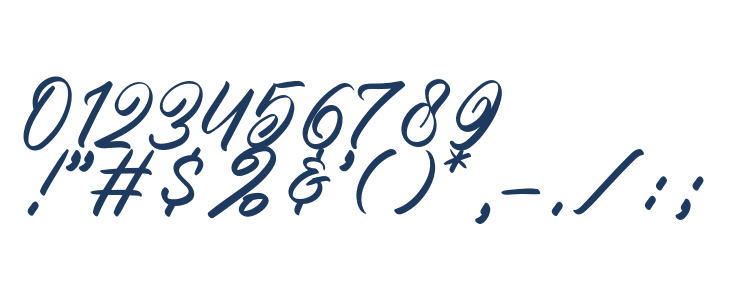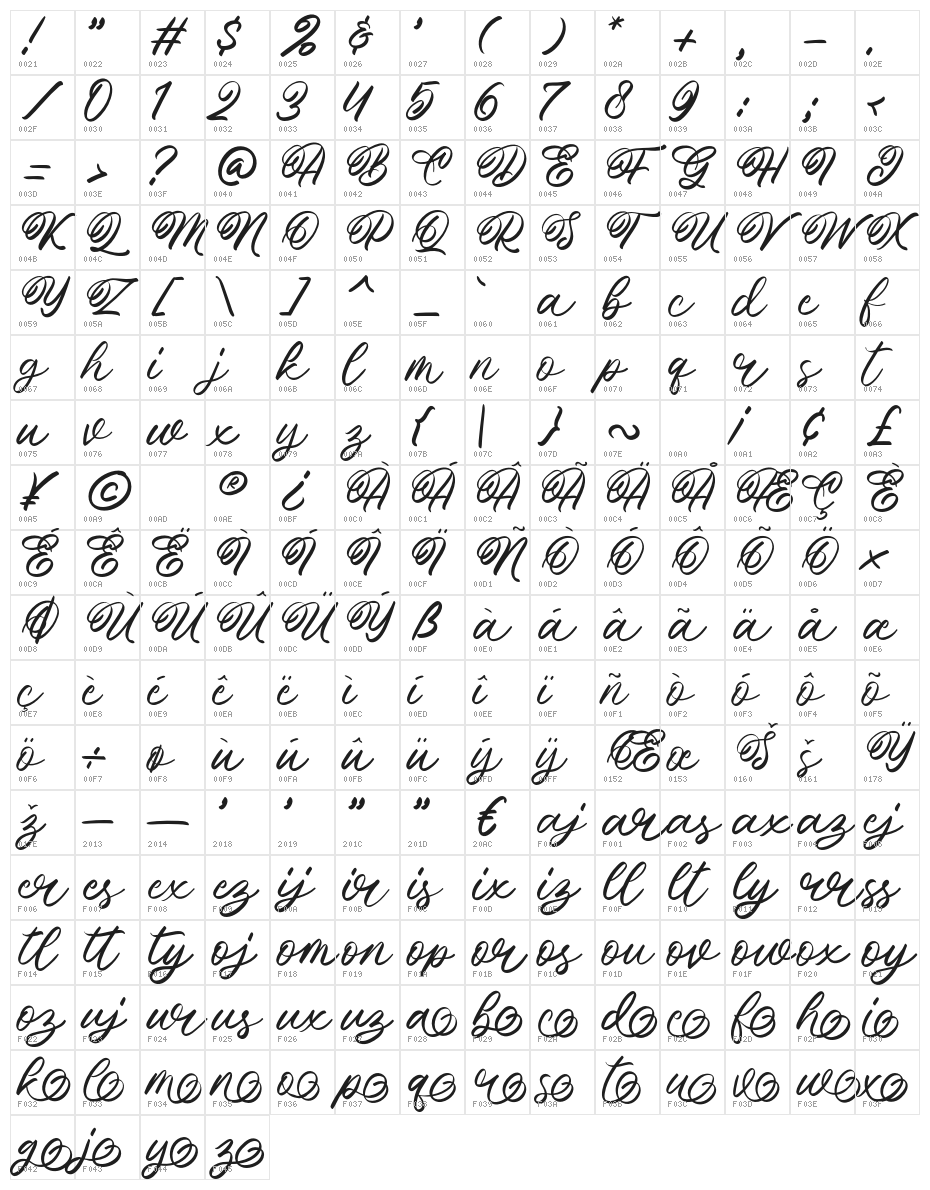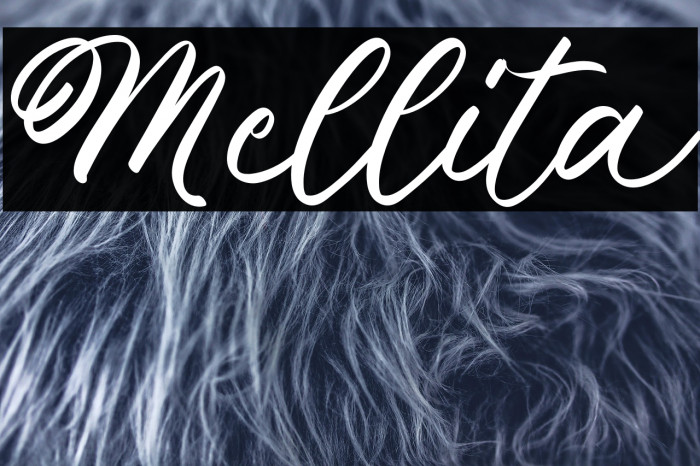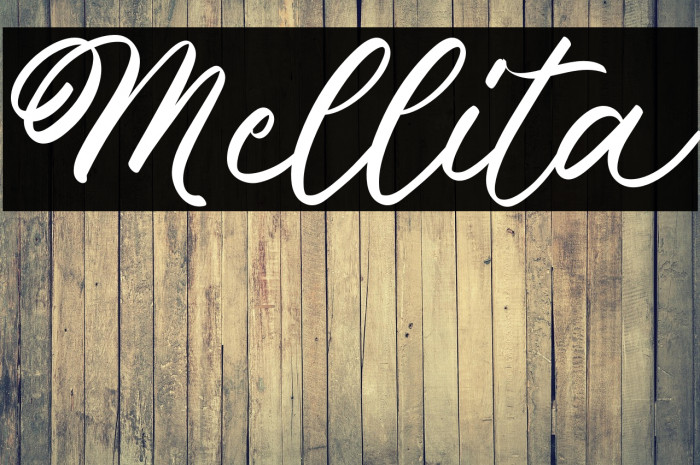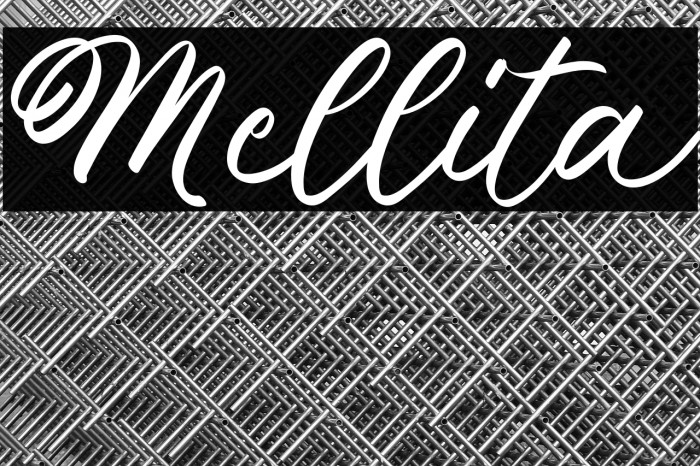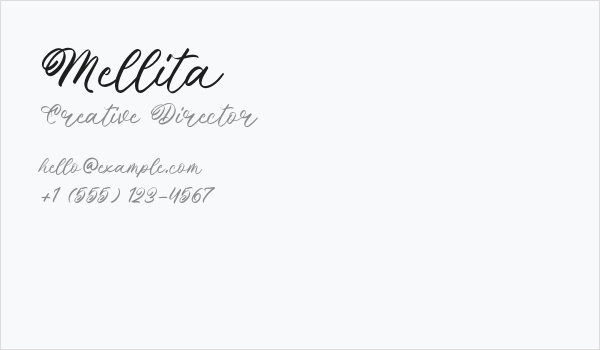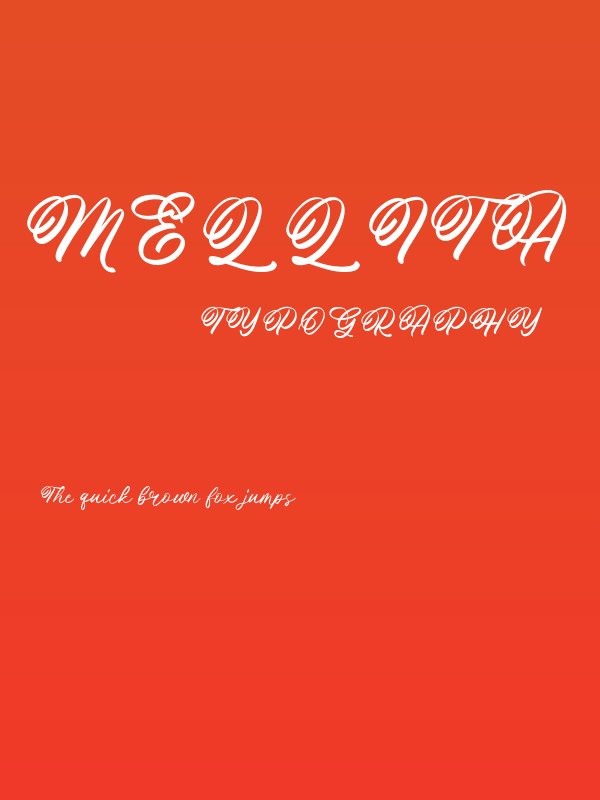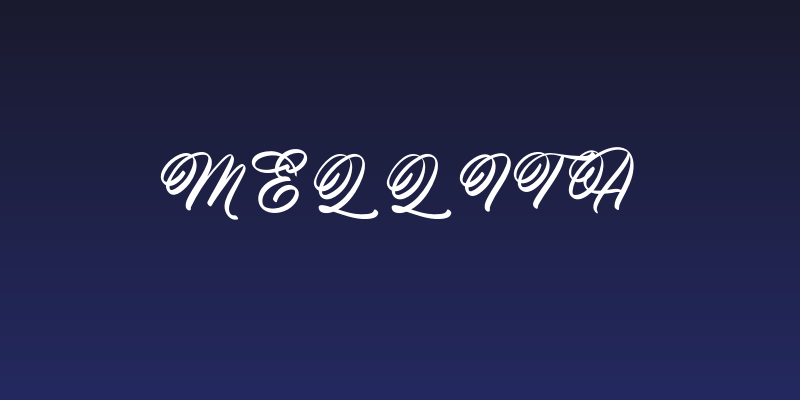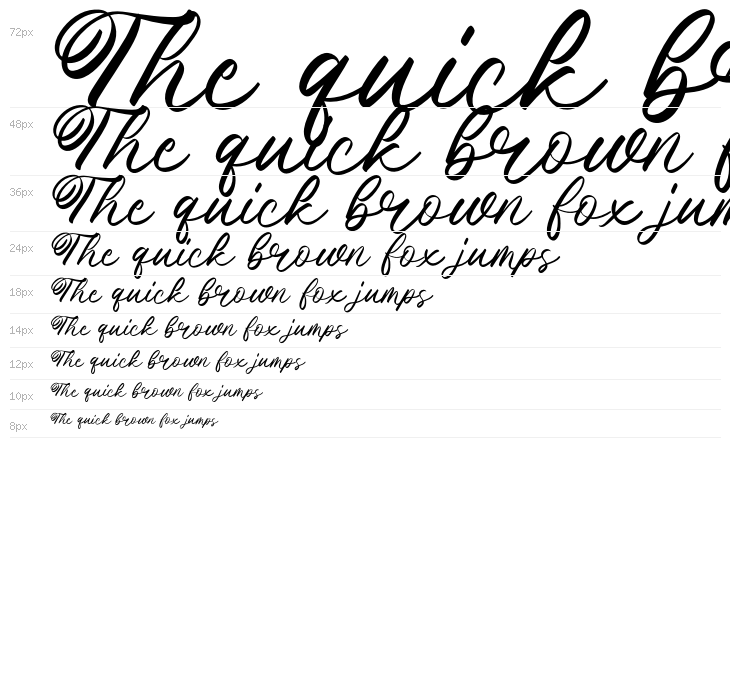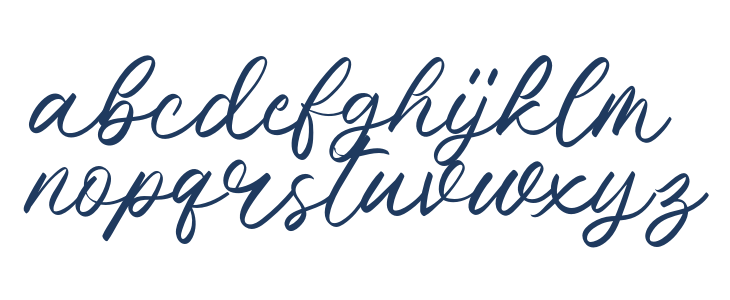
Mellita Font
Mellita Description
This font exudes a classic and elegant script style, characterized by its flowing, cursive letterforms. The uppercase letters are ornate, featuring intricate loops and swirls that add a touch of sophistication. The lowercase letters maintain a smooth and connected appearance, enhancing readability while preserving the decorative nature. The numerals are bold and slightly italicized, complementing the overall script style. Special characters are designed with the same attention to detail, ensuring consistency across all glyphs. This font is ideal for projects that require a touch of elegance and formality.